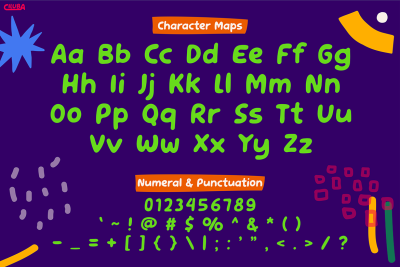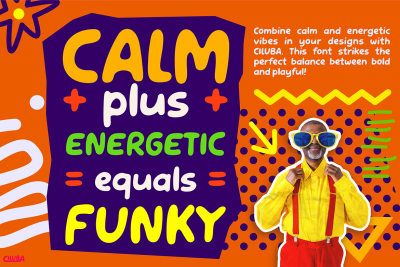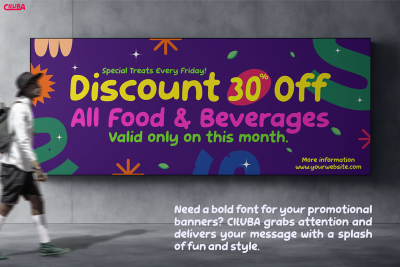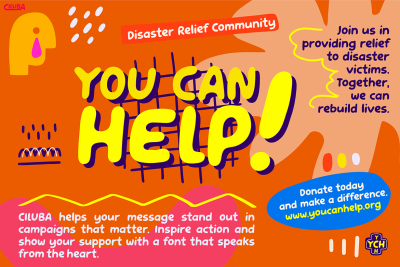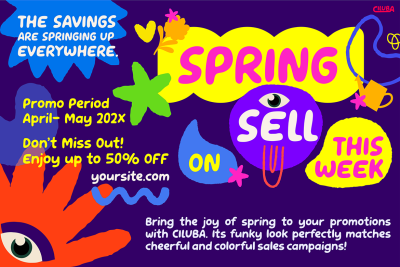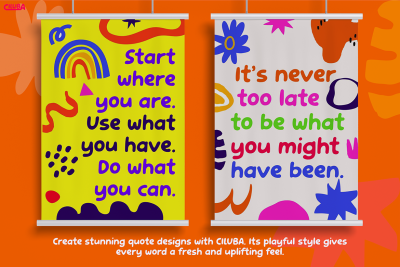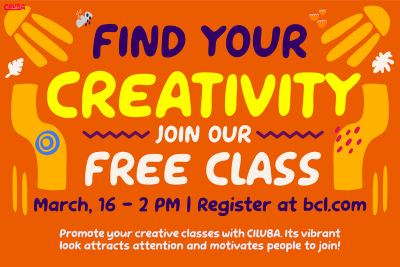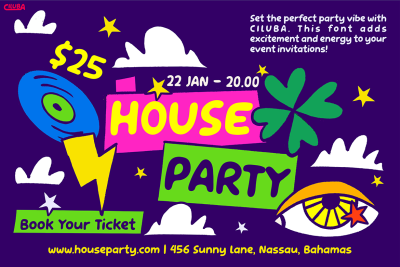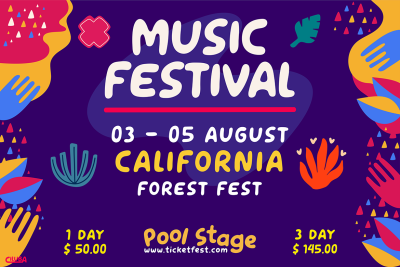
Kids Font CILUBA is a fun and playful typeface designed to bring joy to any project. Its bold, rounded letters create a cheerful and whimsical look. Moreover, the font is easy to read, making it perfect for designs aimed at children. With its soft curves and vibrant personality, it adds excitement and creativity to any layout. Whether for storybooks, posters, or games, Kids Font CILUBA stands out while staying friendly and approachable.
Additionally, this font works well in both digital and print formats. It has a modern yet timeless charm that appeals to all ages. Furthermore, its bold style makes it perfect for catching attention in branding, packaging, or signage. The colorful, decorative elements enhance its lively tone. Therefore, it is an ideal choice for projects that need a fun and upbeat feel.
The versatility of Kids Font CILUBA extends beyond traditional uses. For example, it can be used in social media graphics to instantly capture viewersโ attention. Its bold and colorful look is particularly effective for promoting events, contests, or special sales targeted at families. Also, the font is easy to pair with other design elements, making it suitable for layered or multi-dimensional designs.
Kids Font CILUBAย Suitable For
Kids Font CILUBA is great for anyone working on child-friendly projects. Itโs ideal for:
- Childrenโs Books and Storybooks: Perfect for titles and headings that grab attention and spark imagination.
- Educational Materials: Great for worksheets, classroom posters, and learning apps. In particular, it helps make learning more fun and engaging.
- Toy Packaging: Complements colorful and exciting products for kids, ensuring they stand out on shelves.
- Birthday Invitations and Party Themes: Adds fun and excitement to invitations, banners, and decorations.
- Kidsโ Apps and Games: Works well for app interfaces, game titles, or promotional materials, especially when targeting younger users.
- Child-Centric Branding: A great choice for daycares, kidsโ clothing lines, or family cafรฉs, as it creates a welcoming vibe.
In conclusion, Kids Font CILUBA is perfect for designers, educators, and businesses targeting kids or family-oriented audiences. By combining charm, playfulness, and functionality, it adds a sense of joy and creativity to any project. Whether youโre designing for print or digital, this font ensures your message is delivered in a way that is fun, engaging, and memorable!